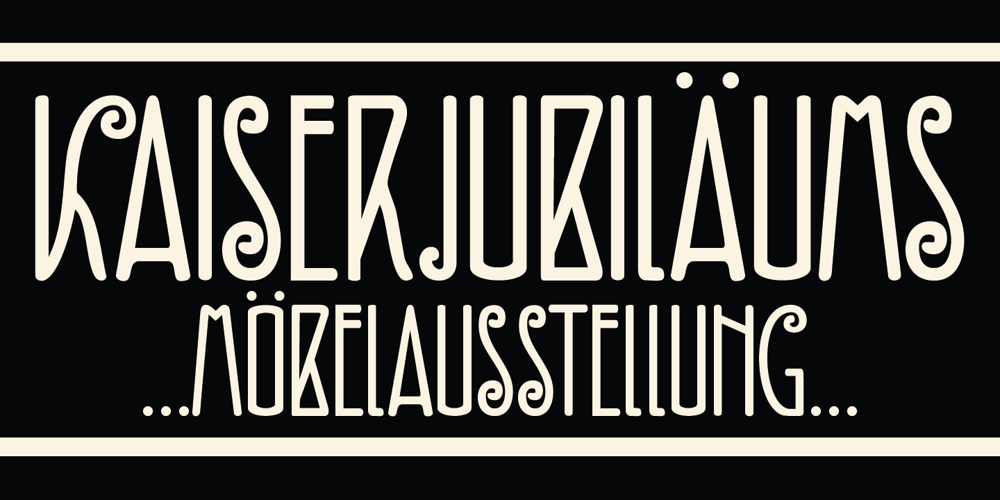
Fiebiger Zwei Font Family was designed by David Kerkhoff and published by Hanoded. Fiebiger Zwei contains 1 styles and family package options. Franz Fiebiger (1880 – 1932) was an Austrian painter and designer who was associated with the Vienna Secession. In 1908 he created a beautiful poster for the Kaiserjubiläums Möbel Ausstellung – a furniture exhibition during the Kaiser’s Jubilee. Fiebiger Zwei (meaning Fiebiger Two) is the second font based on one of the hand made typefaces gracing this poster. As I had to work with only a few glyphs, I designed the missing ones myself. Fiebiger Zwei comes with language support befitting a Kaiser…